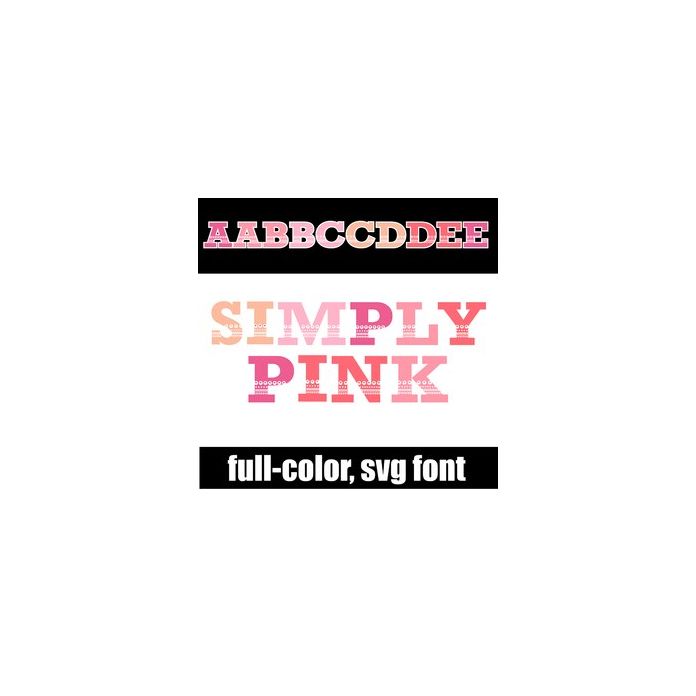
This full-color font features a slab serif font with pink designs throughout. There is an alt case w/ additional colors you can access through your system or Silhouette's glyph map.